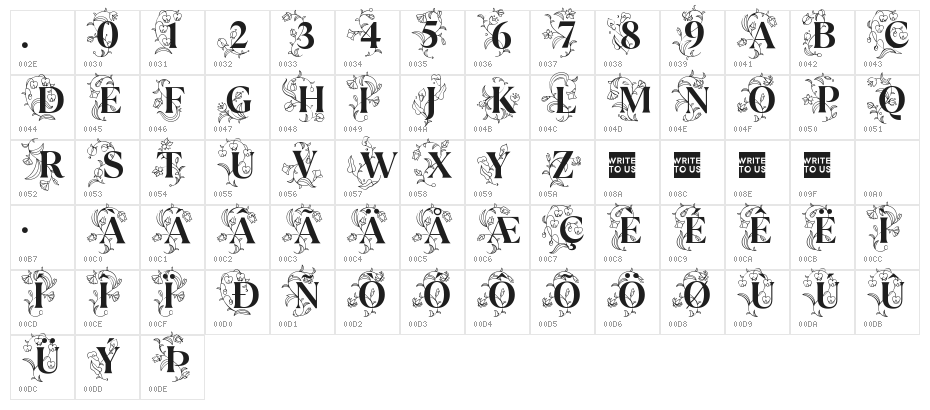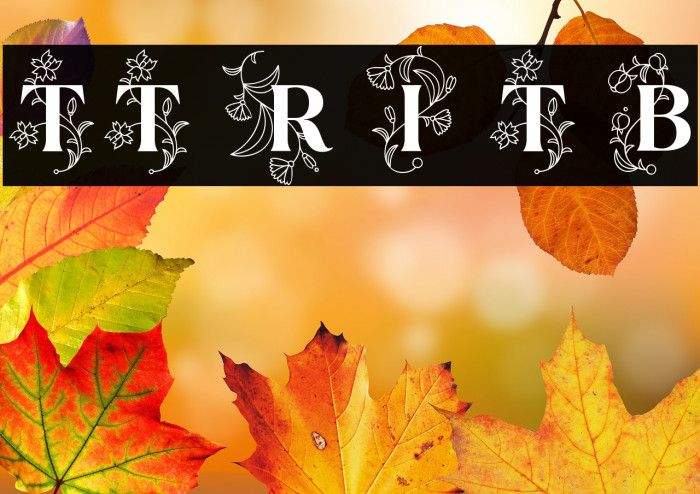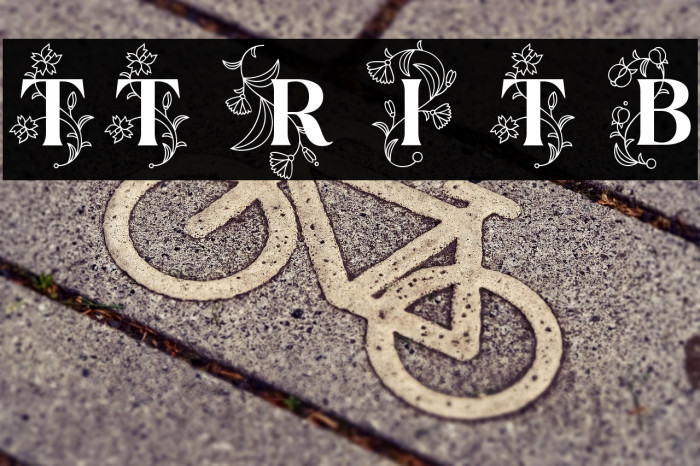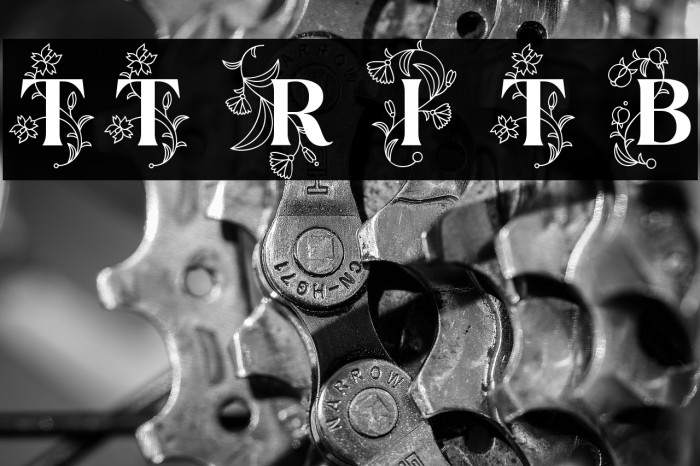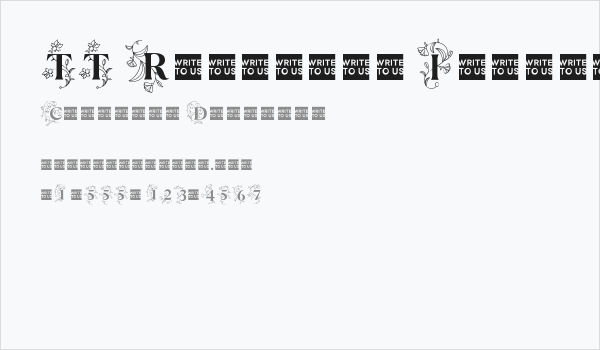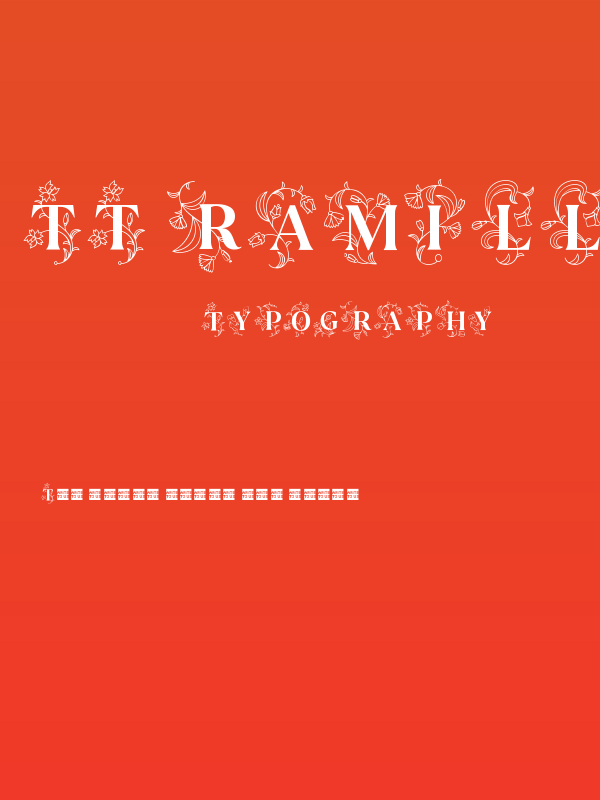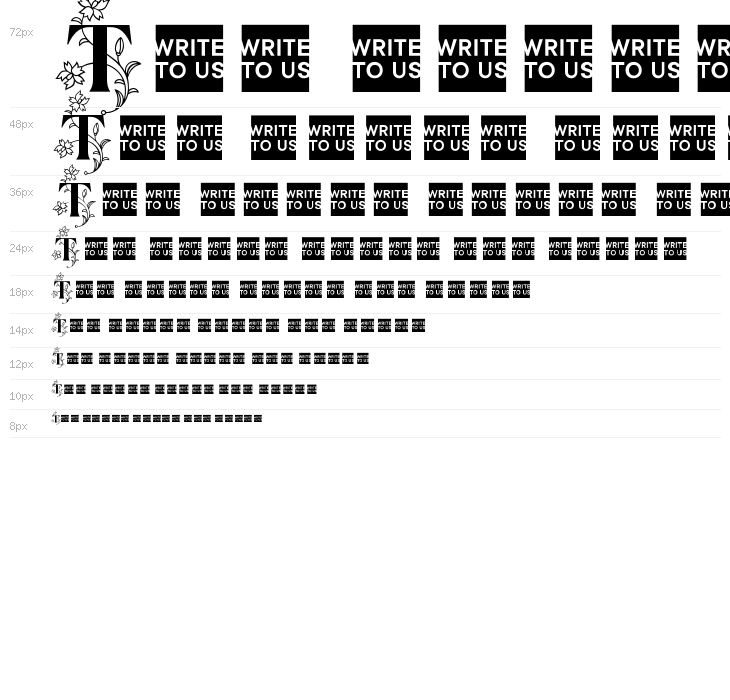
TT Ramillas Initials Trl Bd Font
TT Ramillas Initials Trl Bd Description
This font features an ornate and decorative style, with each character adorned with intricate floral and vine motifs. The letters are bold and stand out against the delicate embellishments, creating a striking contrast. The uppercase letters are particularly elaborate, making them ideal for decorative purposes. The numbers follow the same ornate style, ensuring consistency throughout the font. This font is perfect for projects that require a touch of elegance and sophistication, such as invitations, greeting cards, or artistic designs.
| Use Case | Headlines, Logos, Decorative text |
| Proposed Projects | Ideal for wedding invitations, greeting cards, artistic posters, and decorative headings. |